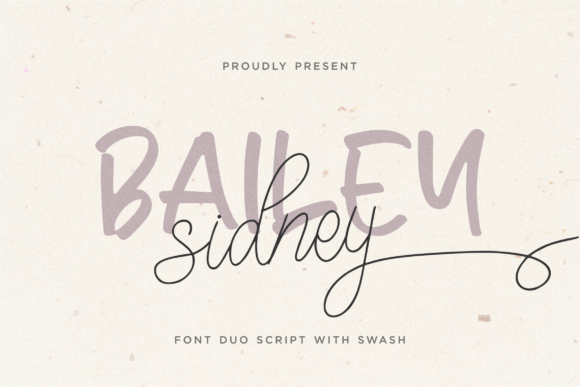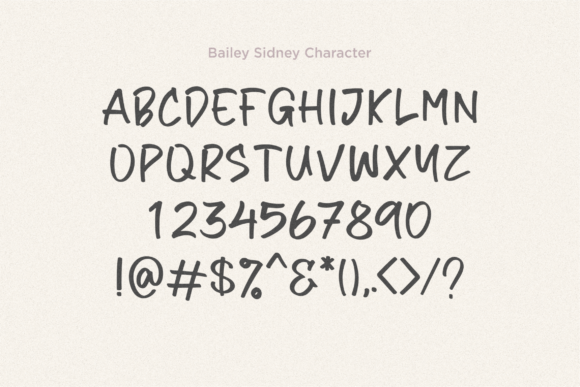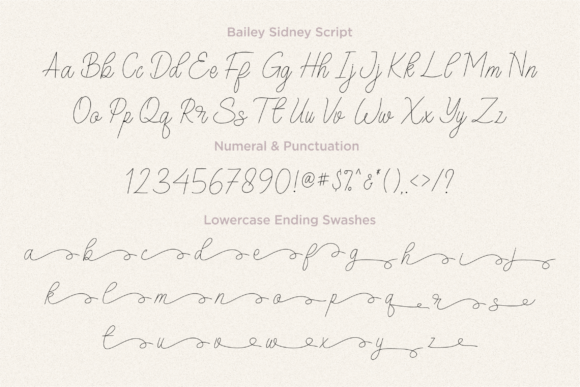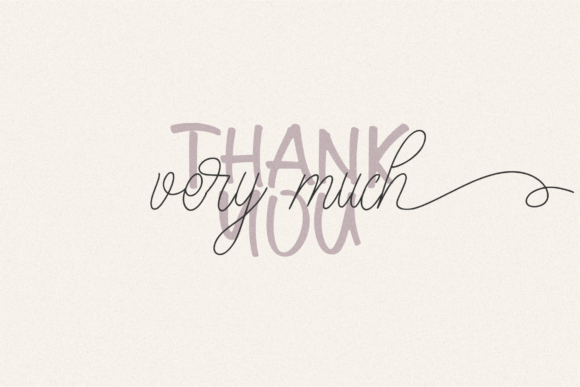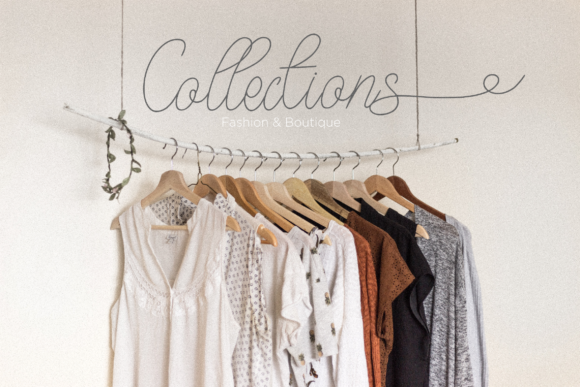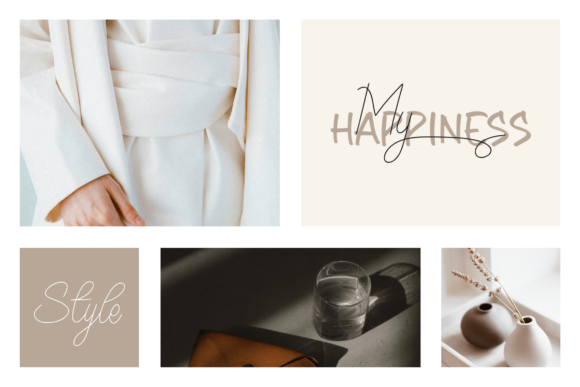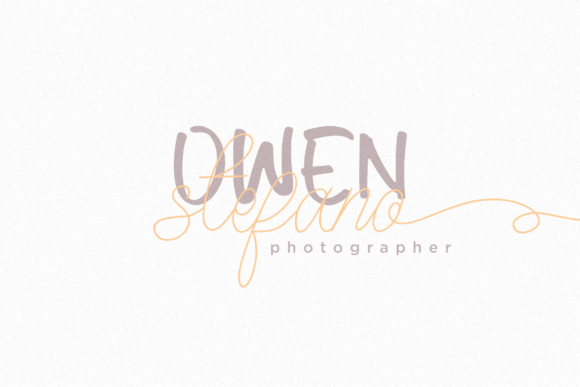
Bailey Sidney Font
About Bailey Sidney Font
Bailey Sidney is a font duo script with swash. Bailey Sidney is perfect for product packaging, branding project, magazine, social media, weddings, or just used to express words above the background.